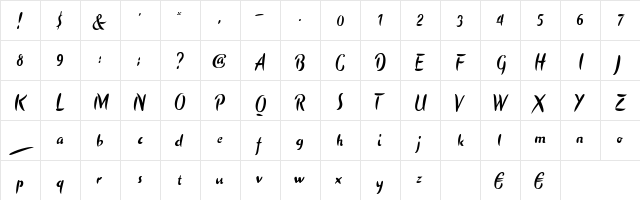
Paella Regular
Design Context for Paella Typeface
Paella is a composed and adaptable typeface that performs quietly and consistently across a wide range of design contexts.